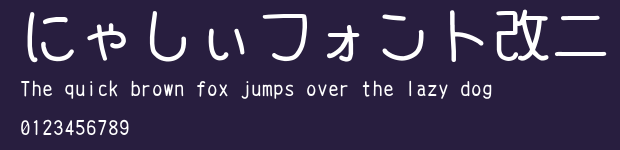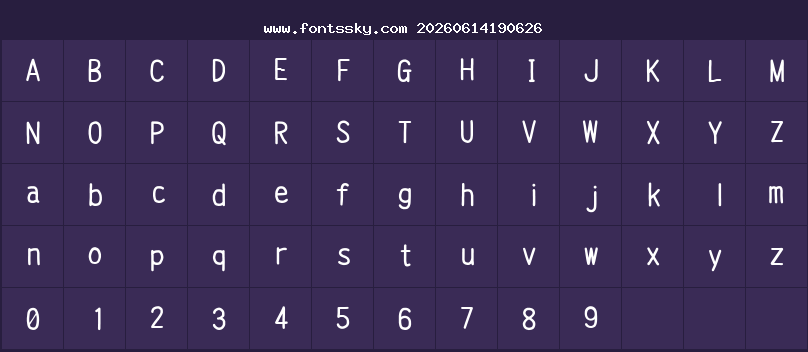
• Font Name: にゃしぃフォント改二
• Font ID: にゃしぃフォント改二
• Full Font Name: にゃしぃフォント改二
• Version: Version 2.084
• PostScript Name: Nyashi
• Character Count: 14964
About にゃしぃフォント改二.ttf
にゃしぃフォント改二.ttf is a modern, elegant sans-serif font designed for ultimate readability and visual harmony. Perfect for branding, headlines, web design, and print materials.